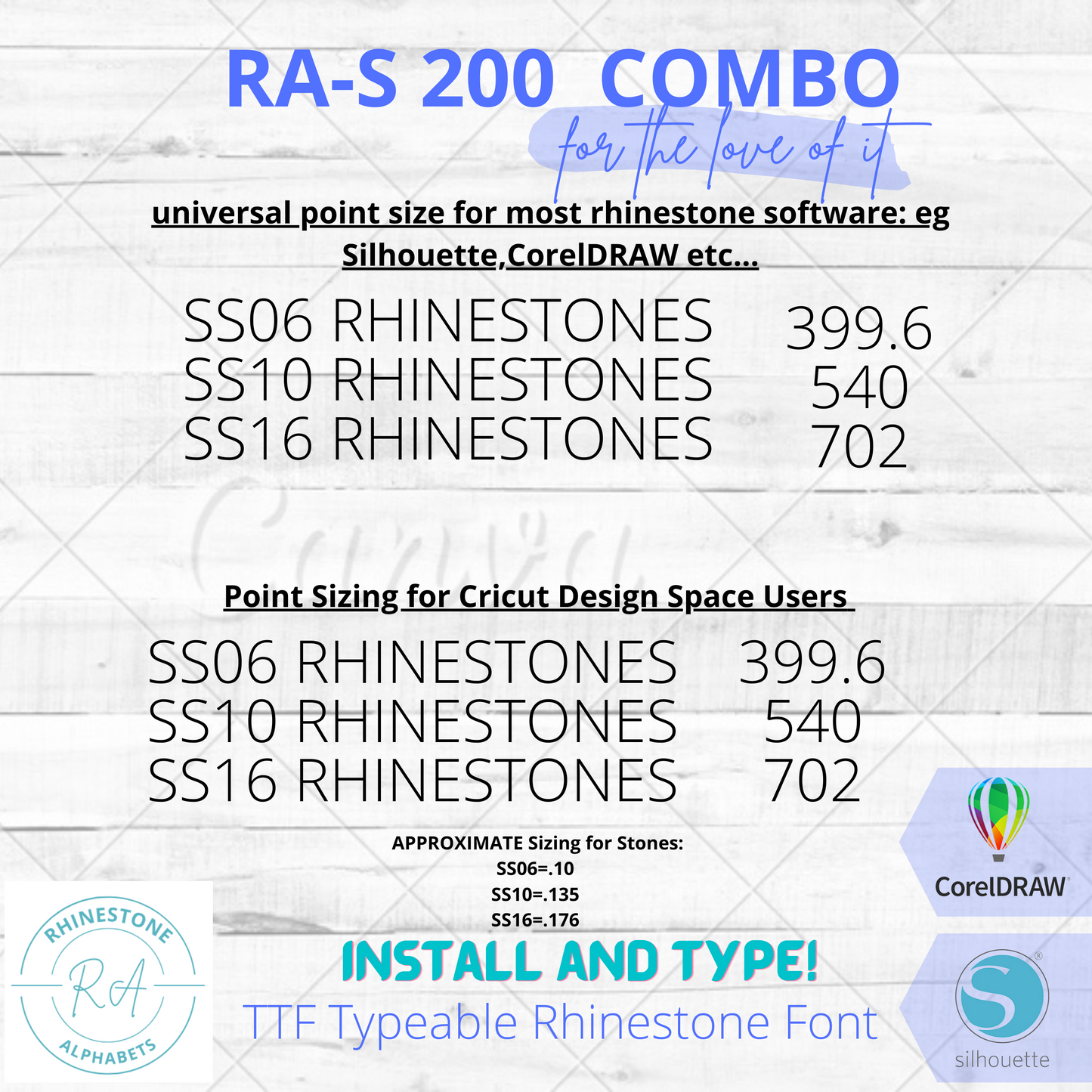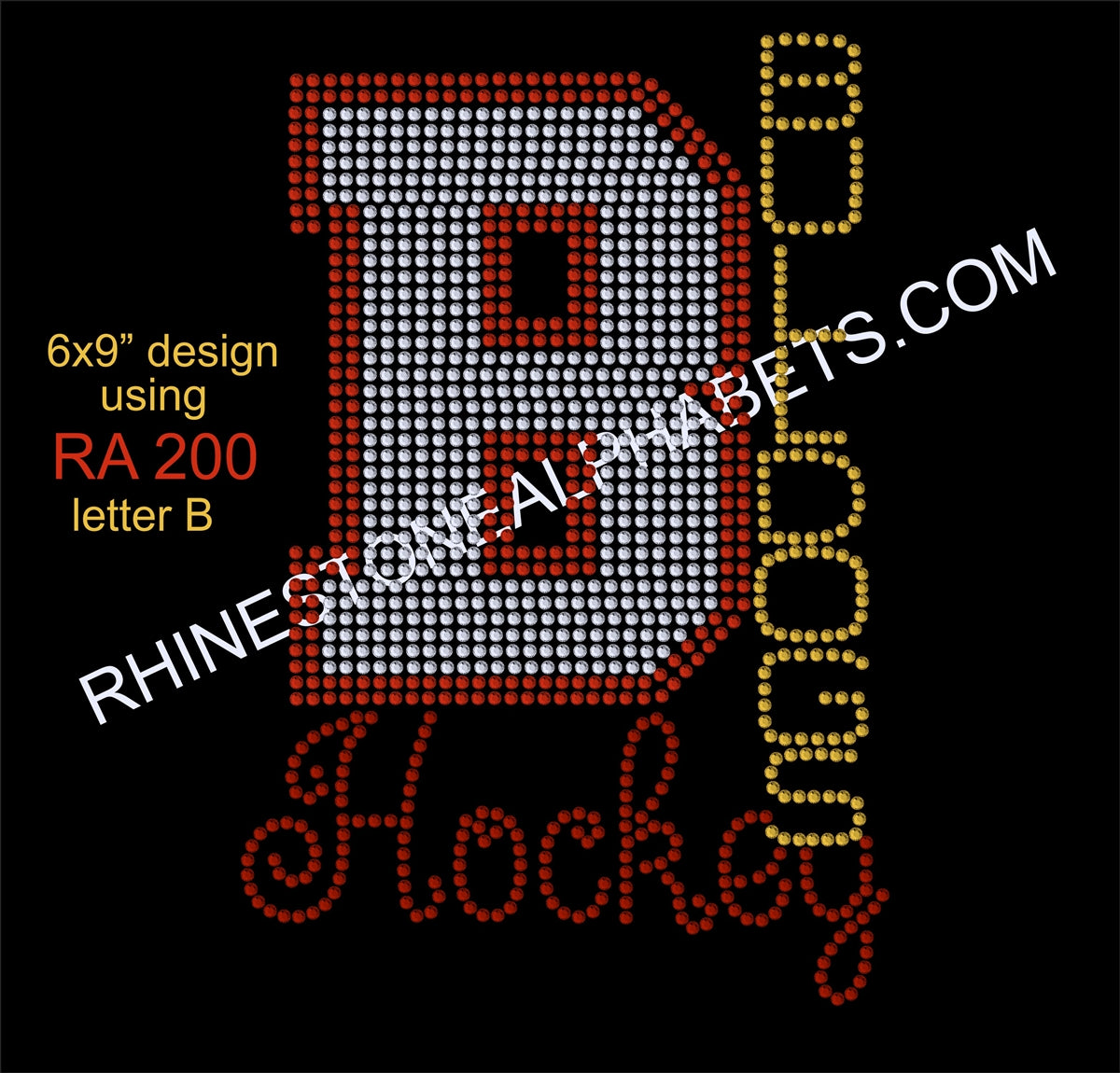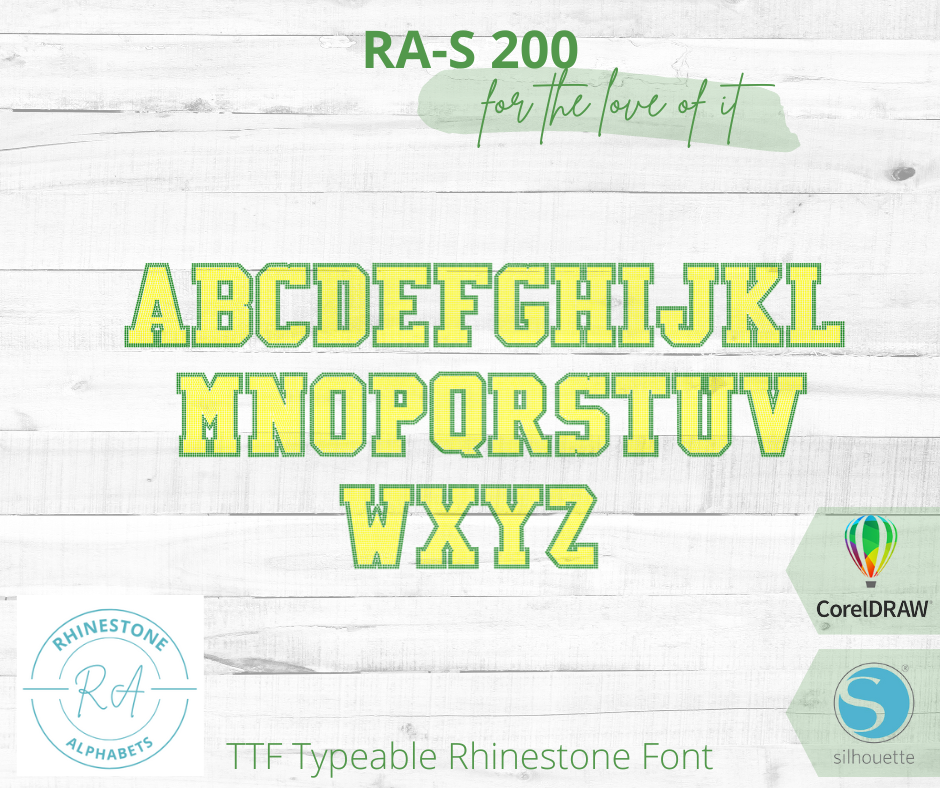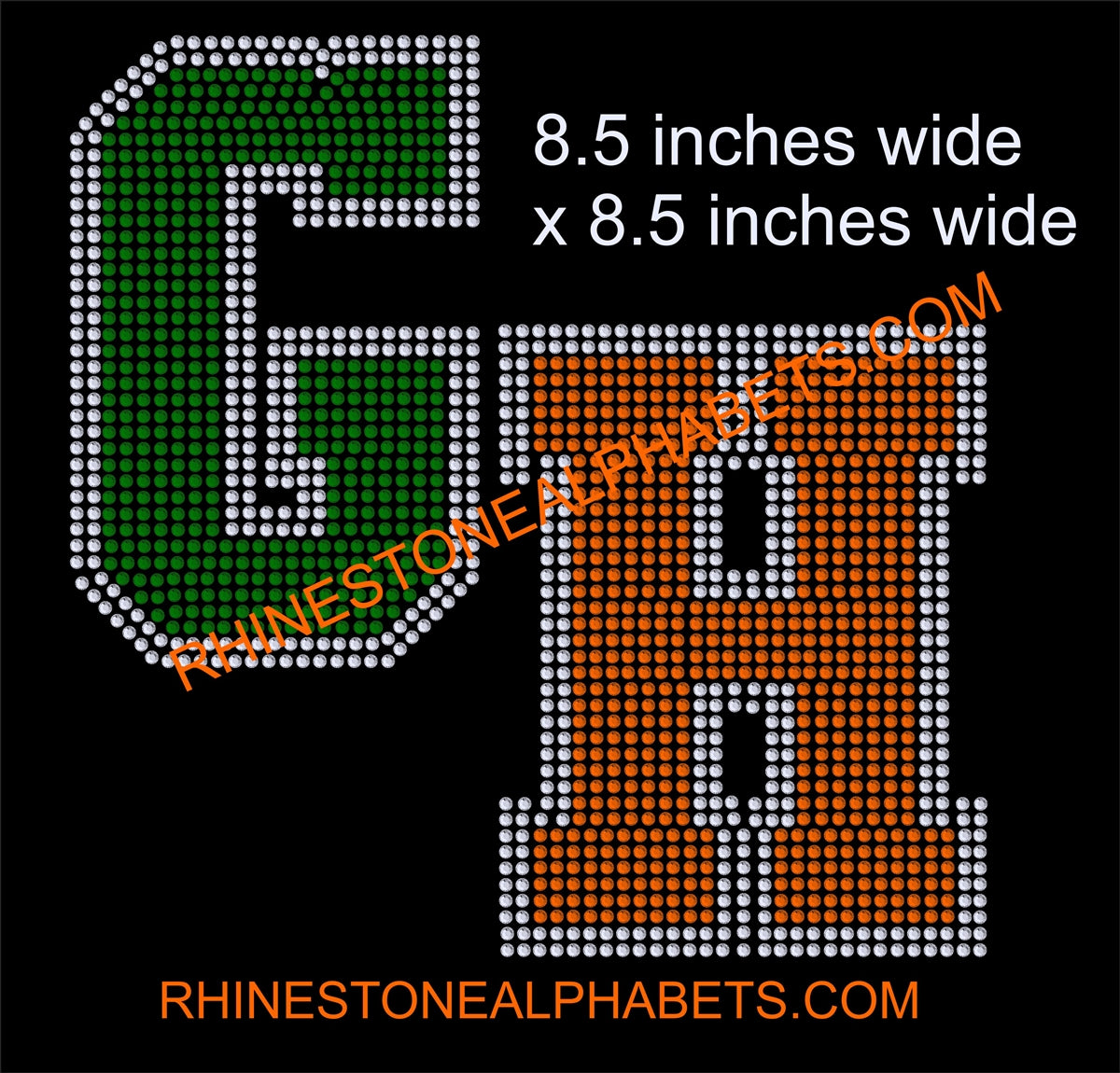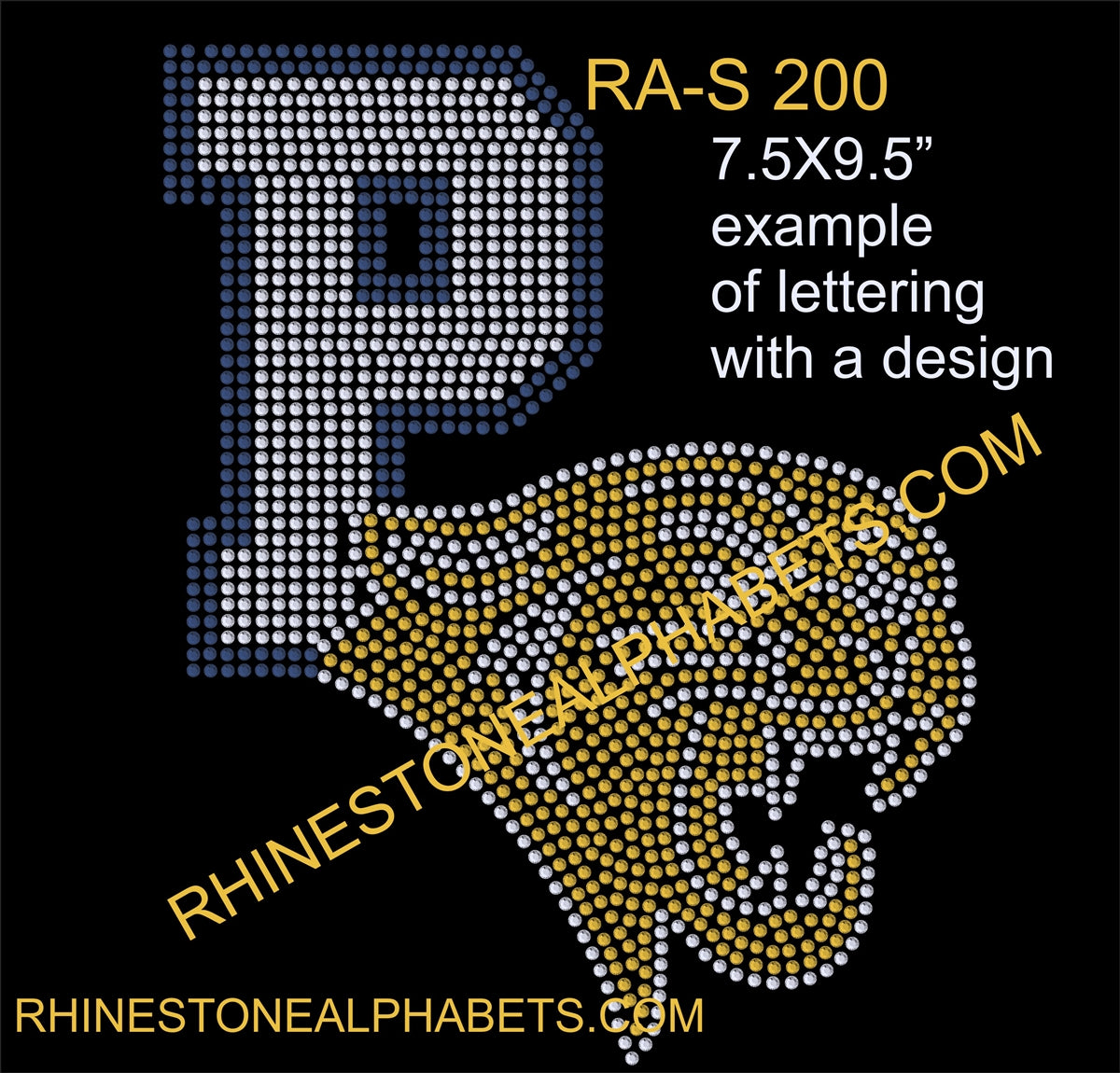
RA-S 200 Combo
uppercase
Combo
This is a super large font that is typeable. The beauty of this is you will most likely only be using 2 or 3 letters at a time, so it works pretty well in cricut.
This tiny typeface is the perfect size for adding text to your projects. With the right font size and weight, your team names, logos, or messages will have an impact that's sure to make a statement.